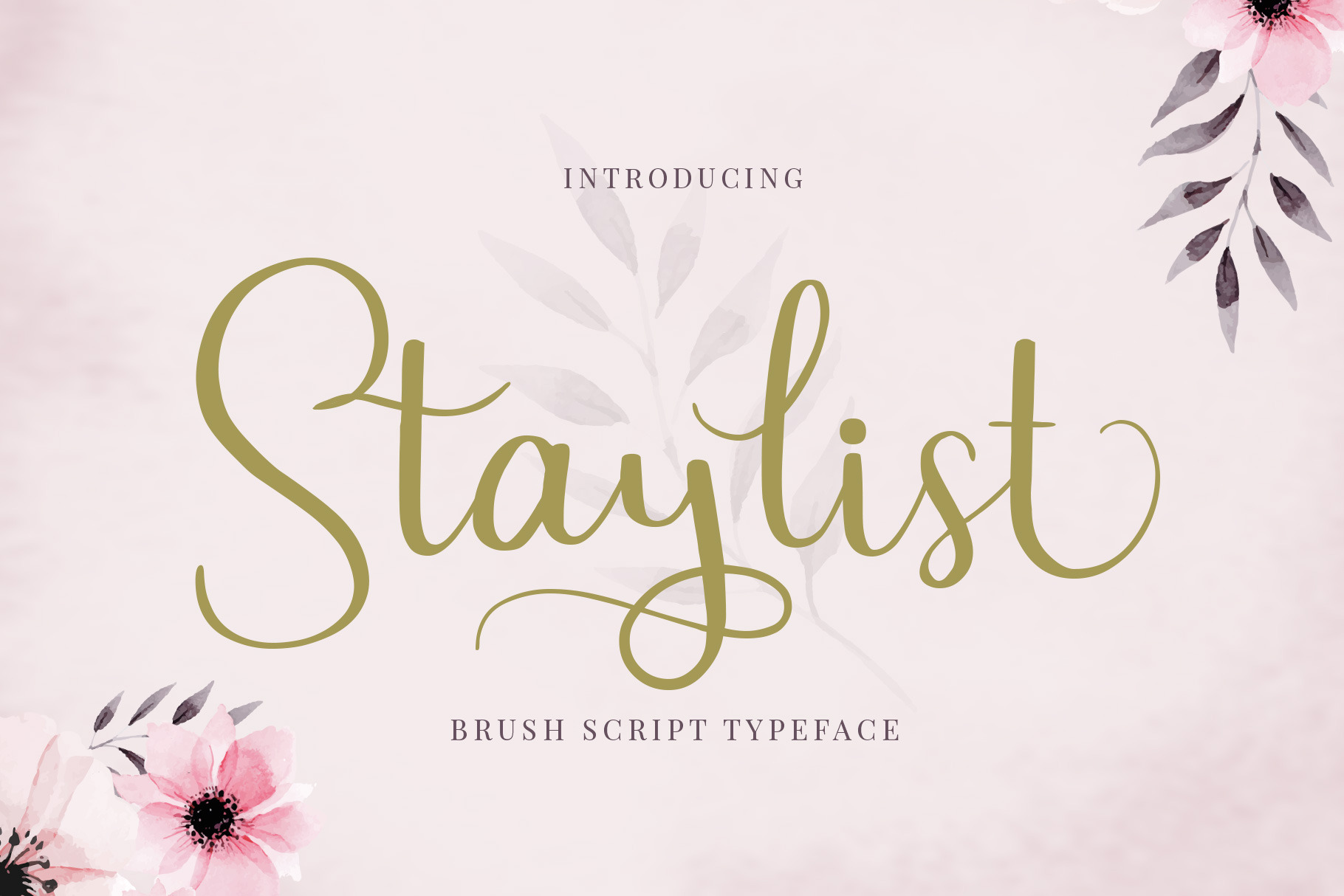
Staylist Script Font
Staylist Script Font is beauty and cute font for any awesome projects such as wedding card, watermark, quote design, social media, poster, invitation card.